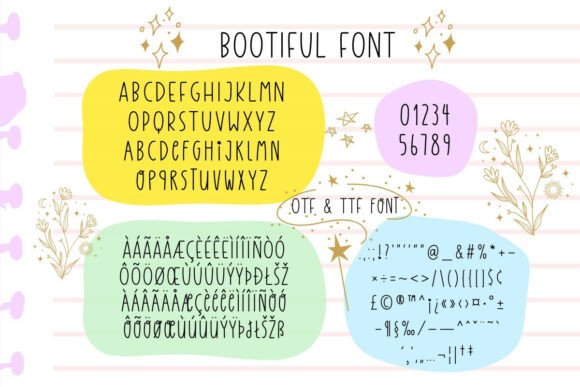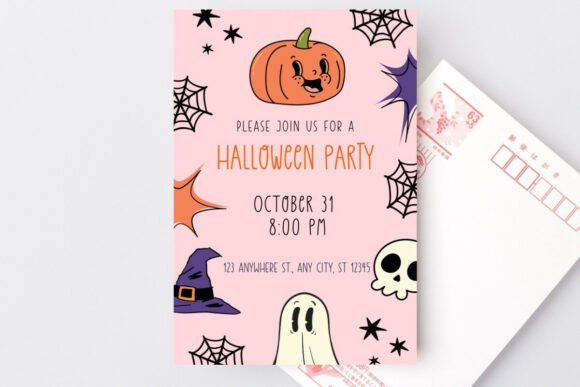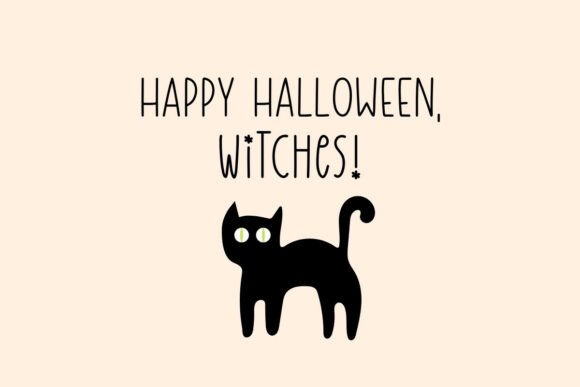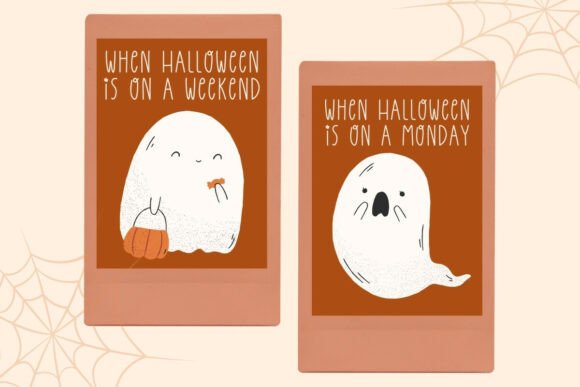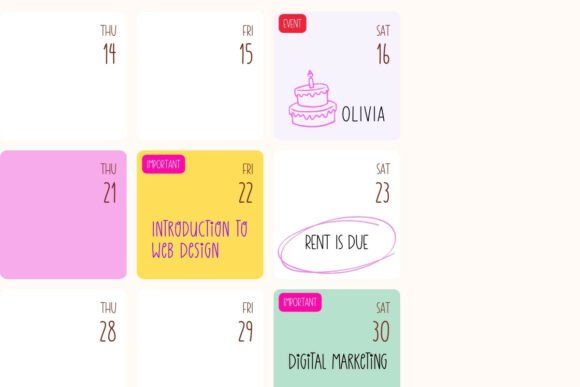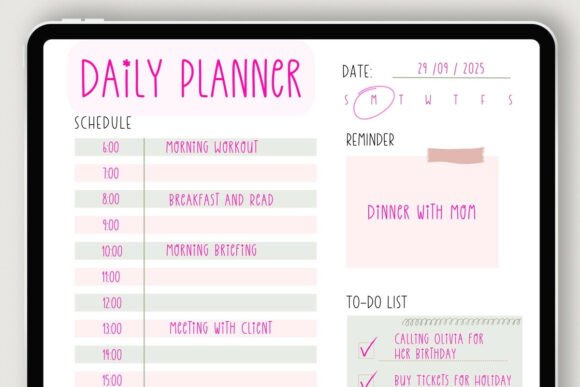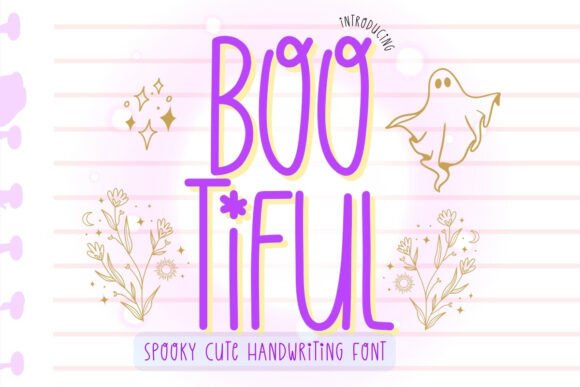
Introducing Bootiful Font: The Spooky-Chic Handwritten Font You Need
As a designer, I’ve had my fair share of late nights scrolling through font libraries, searching for that perfect typeface to bring my project to life. But one evening, while working on a Halloween-themed invitation, I stumbled upon a font that made my heart skip a beat – Bootiful Font. This spooky yet elegant handwritten font has been a game-changer for my designs, and I’m excited to share its magic with you! ✨
What Makes Bootiful Font So Special?
Bootiful Font is a beautiful blend of whimsy and sophistication, making it perfect for a variety of creative projects. Here are some of its standout features:
• ✨ Tall, graceful letters with a whimsical spooky charm
• ✅ Includes uppercase, lowercase, numbers, punctuation, and multilingual support
• 🎃 Perfect for Halloween invitations, party decor, and posters
• 🌙 Great for witchy and celestial designs with stars and moons
• 👕 Ideal for cute spooky quotes on shirts, mugs, and stickers
• 💜 Perfect for digital journaling, scrapbooking, and planners
• ✨ The unique blend of spooky and elegant, making it versatile for various designs
• ✅ The font is highly legible, even at smaller sizes
• 🌈 The range of characters and multilingual support is impressive
• 👍 The font is easy to pair with other typefaces
• 🤔 Some users might find the font a bit too ornate for very formal designs
• ⚠️ The font’s OpenType features might require a bit of experimentation to master
Bootiful Font was created with the intention of capturing the essence of spooky-chic design. The designer, inspired by the magic of Halloween and the mystery of the night sky, crafted a font that’s both beautiful and boo-tiful. With its unique blend of elegance and whimsy, Bootiful Font is sure to cast a spell on your designs! ✨
A: Yes, Bootiful Font features a range of OpenType features, including stylistic alternates, glyphs, and ligatures.
Q: Is Bootiful Font easy to read?
A: Yes, Bootiful Font is highly legible, even at smaller sizes, making it perfect for body text and quotes.
Bootiful Font is a must-have for crafters, teachers, and small business owners looking for a font that’s spooky, stylish, and absolutely bootiful! 🧁 Whether you’re creating digital planners, printable stickers, or Instagram content, this font is sure to add a touch of magic to your designs. 💕